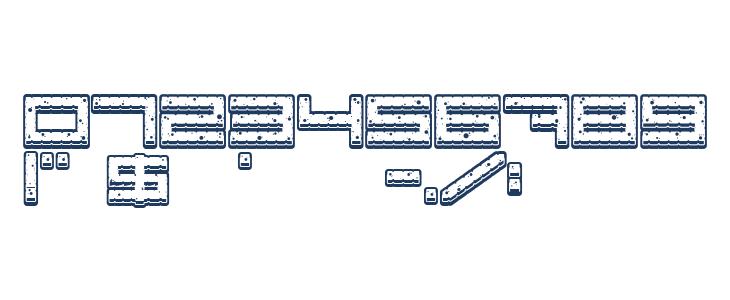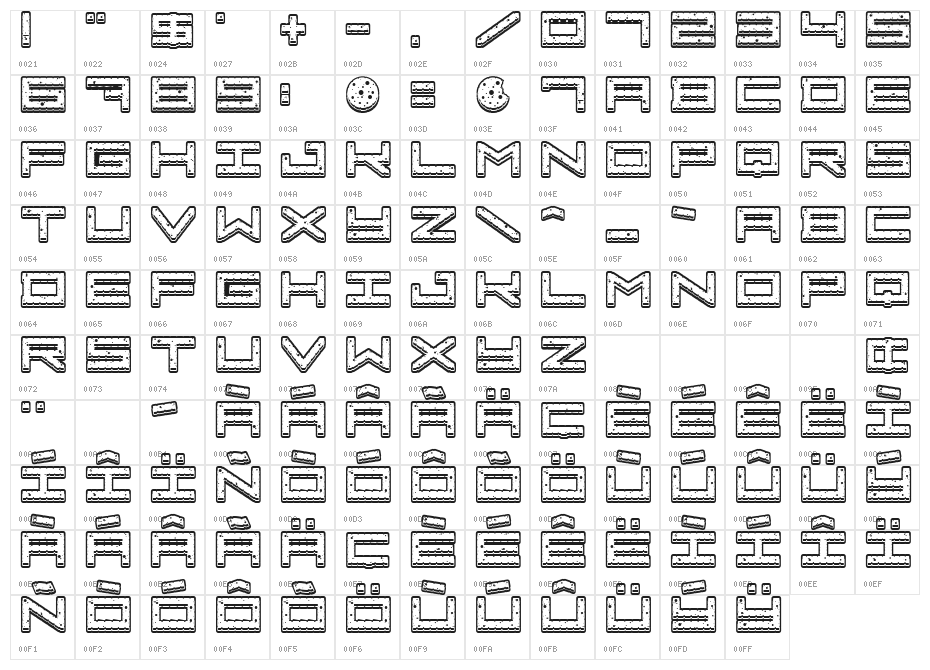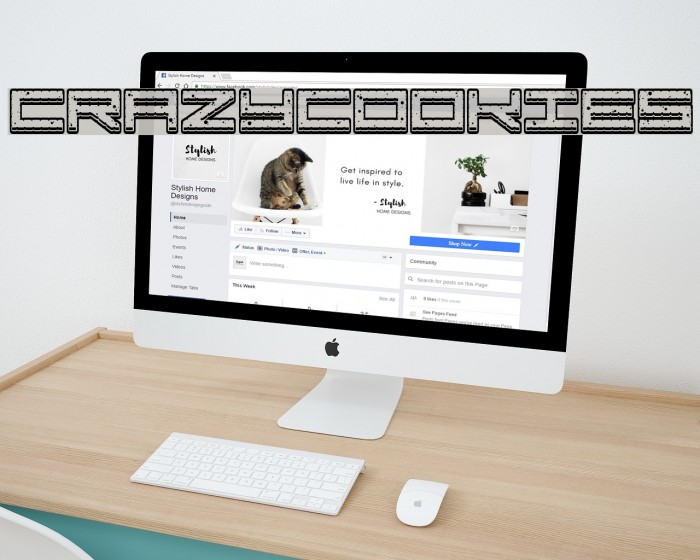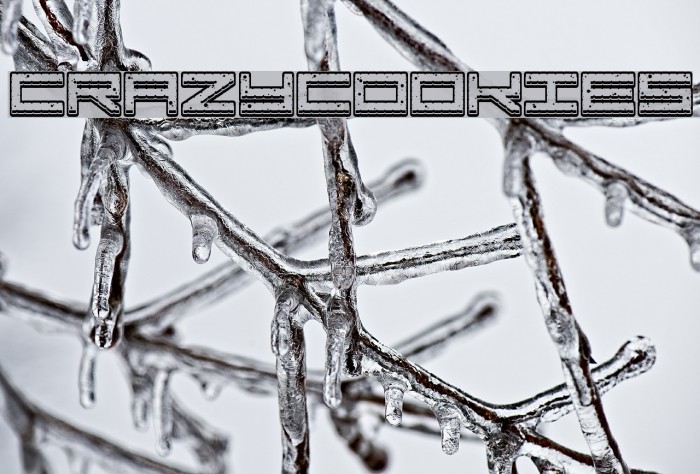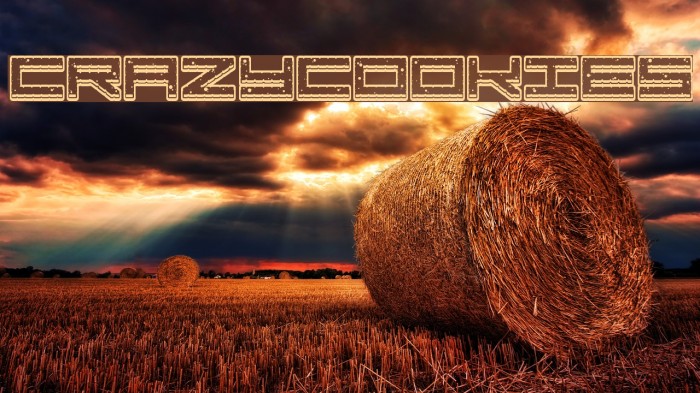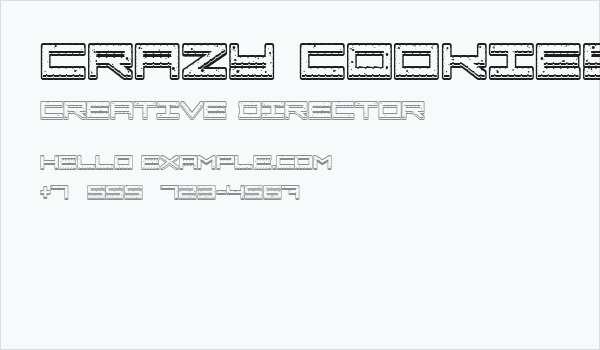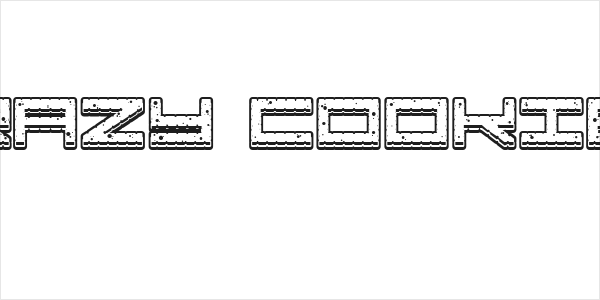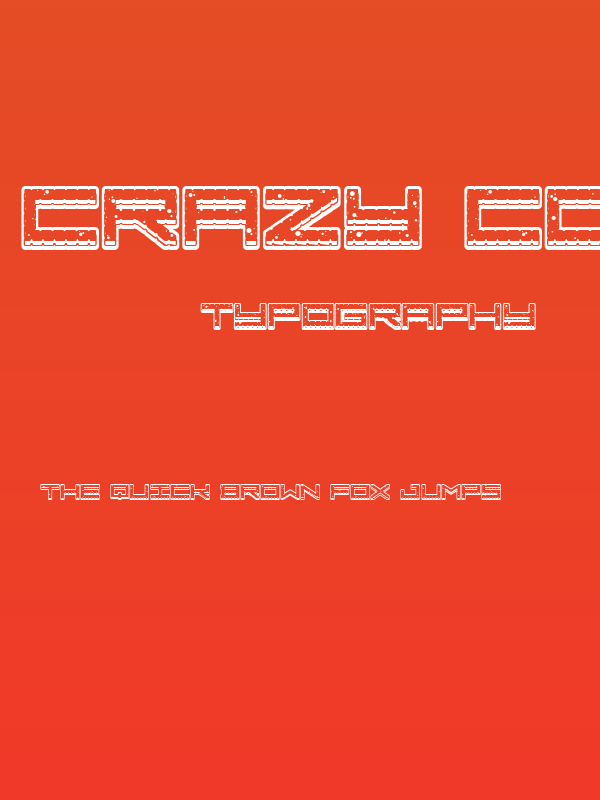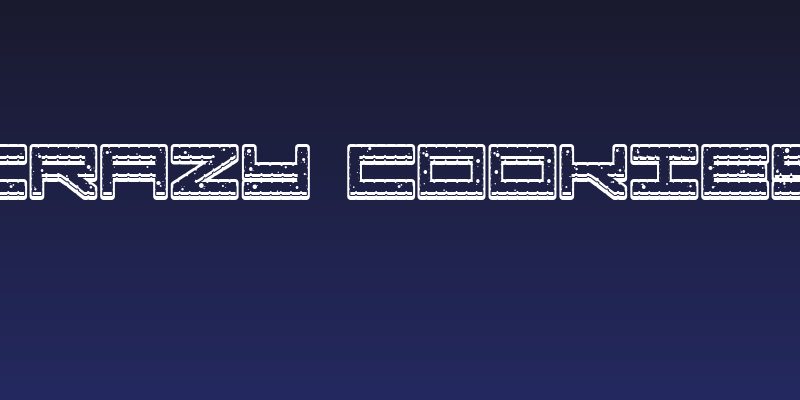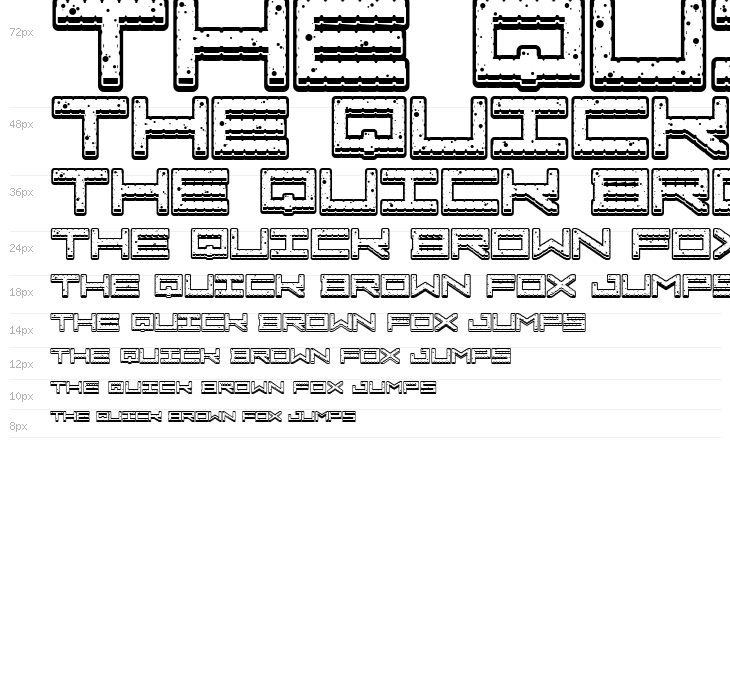
Crazy COokies Font
Crazy COokies Description
This font features a playful and decorative style, reminiscent of cookies with a textured, dotted pattern that adds a whimsical touch. The characters are outlined with a bold, uniform stroke, giving them a distinct and eye-catching appearance. The uppercase and lowercase letters maintain a consistent design, with rounded edges and a slightly condensed form. Numbers and special characters follow the same playful theme, making the font suitable for creative and fun projects. The unique texture and outline make it stand out, perfect for designs that require a lighthearted and engaging feel.
| Proposed Projects | Ideal for children's book covers, playful branding, party invitations, and themed event posters. |